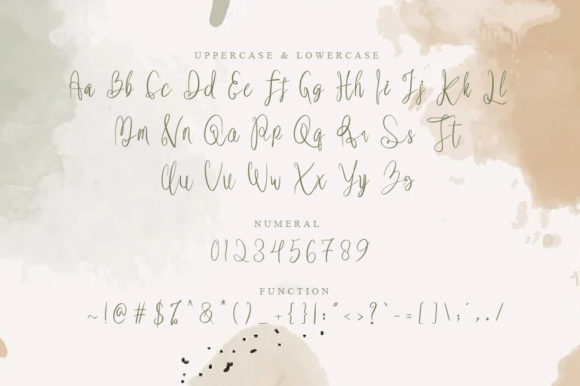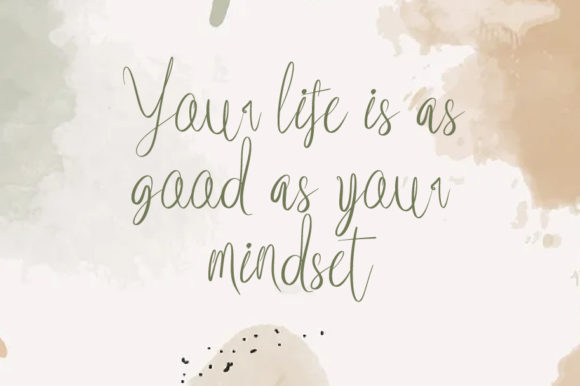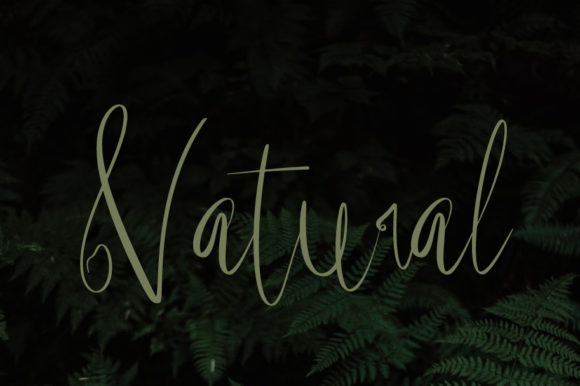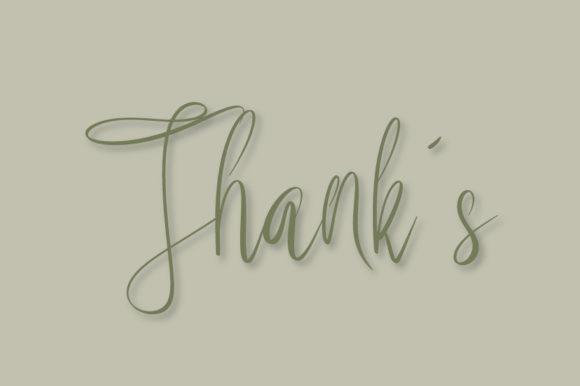
Yidemts Script Font
Yidemts Script is a lovely and timeless handwritten font. It is the best choice for creating eye catching logos, branding and quotes. Every letter has a unique and beautiful touch, which will make your design come alive!